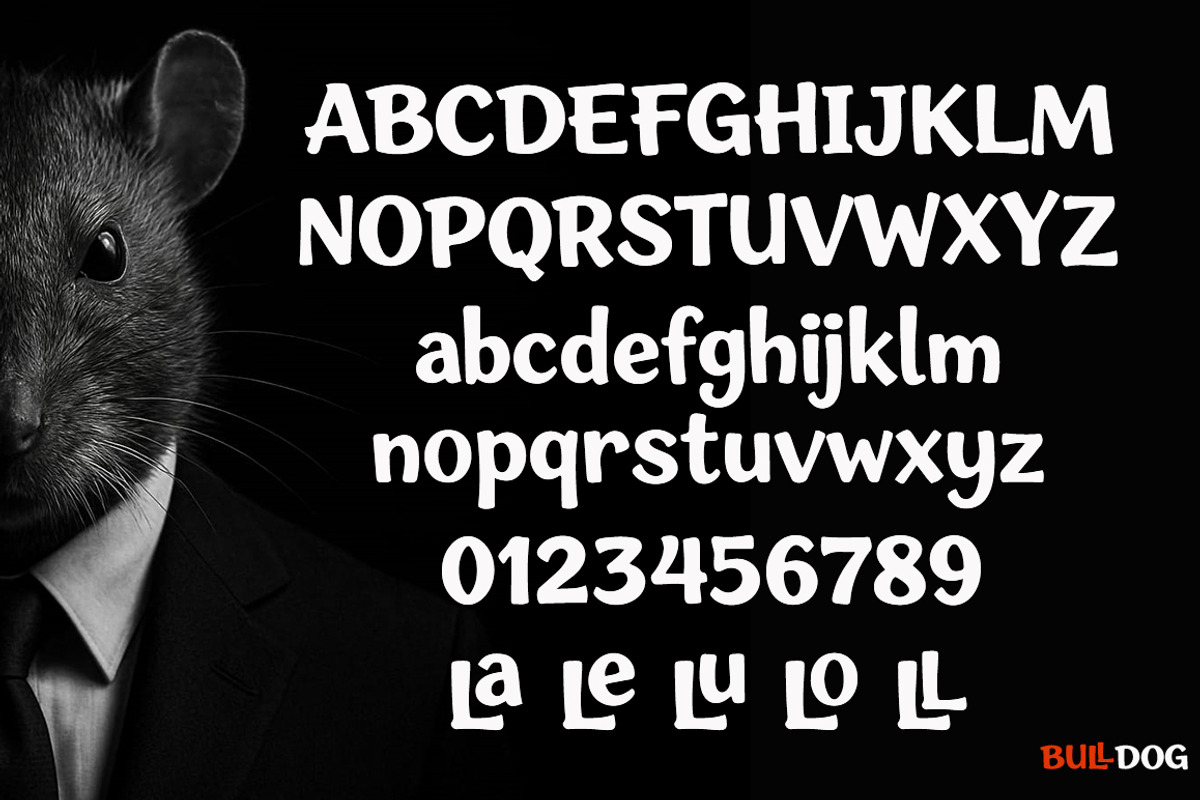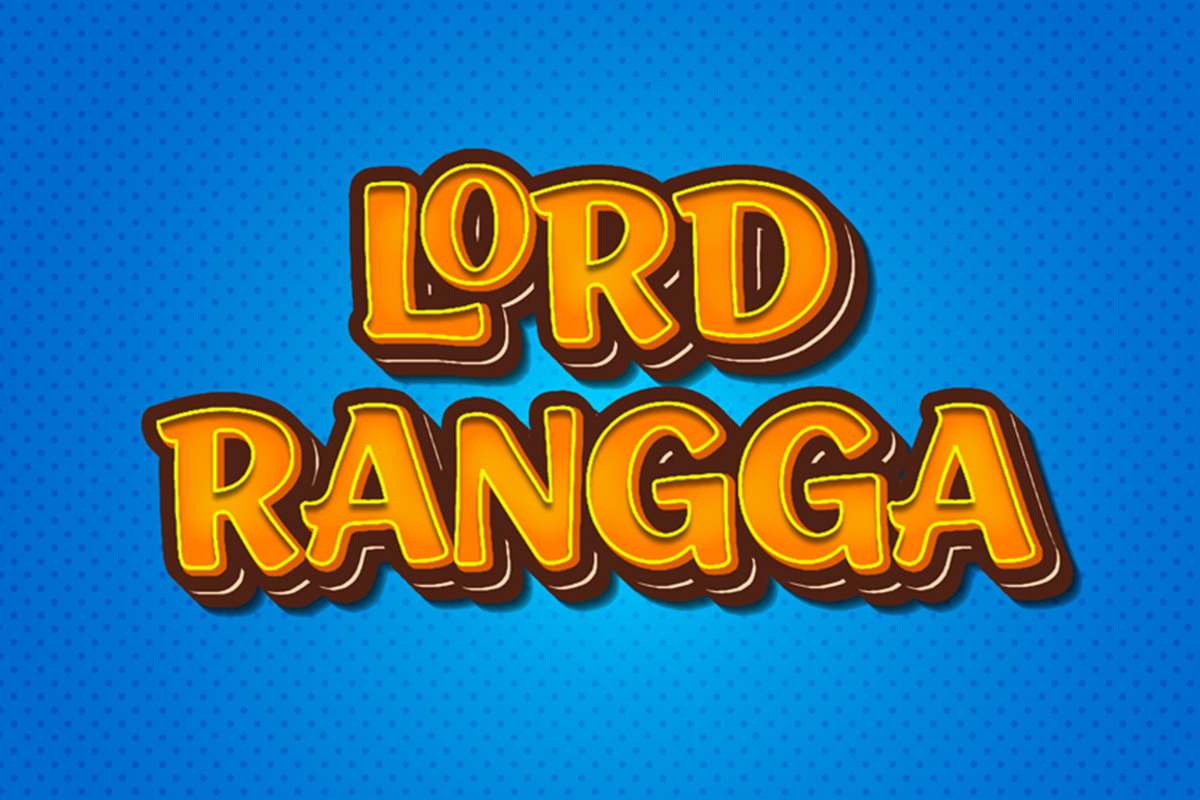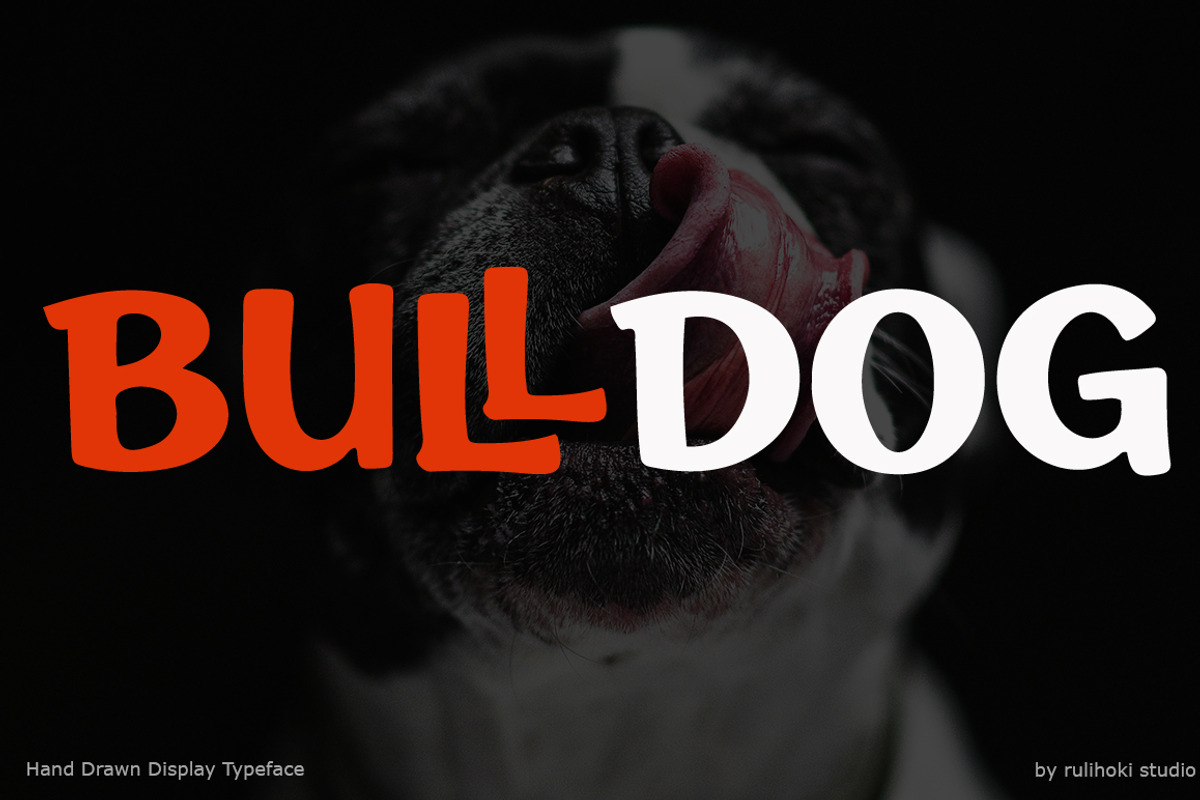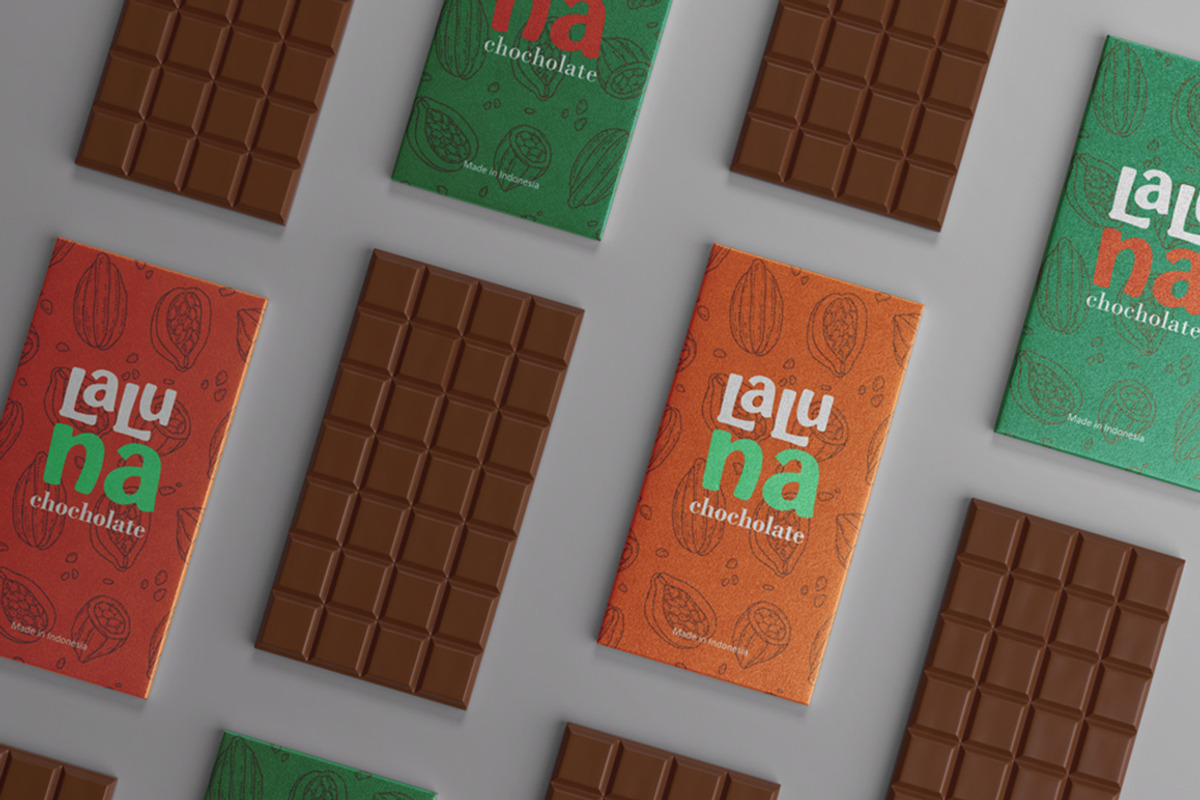
BullDog
BullDog, character-rich marker font inspired by the charm of handwritten chalkboard signs in cafés, bars, and street markets. Featuring naturally connected block letters, playful ligatures, and varied letterforms to avoid monotony, it delivers warmth and authenticity without the dated 80s vibe. Perfect for menus, price boards, and branding that needs to feel welcoming yet bold.